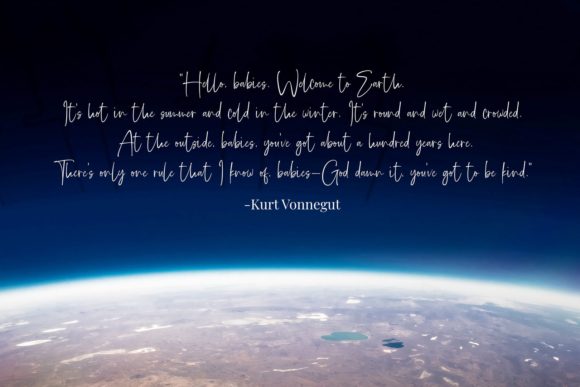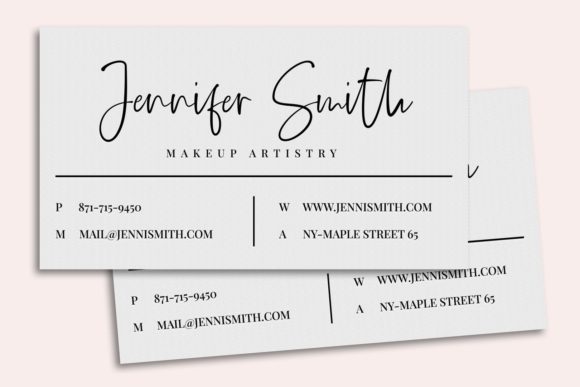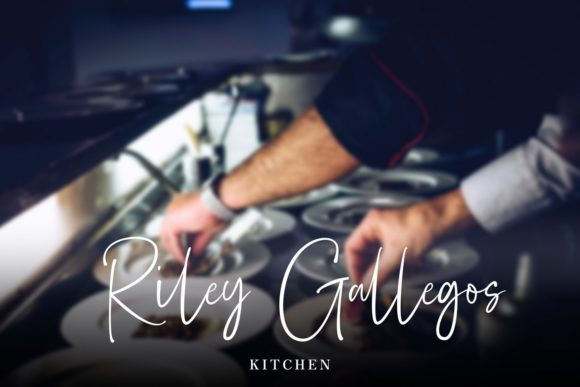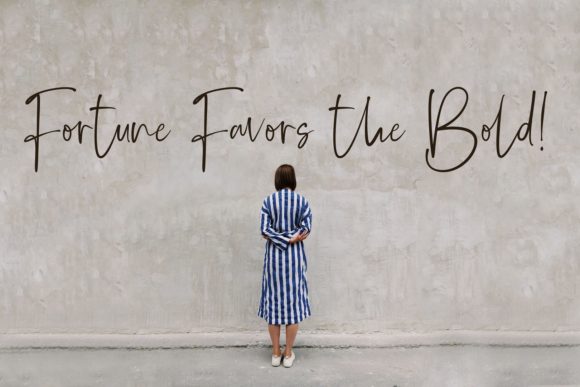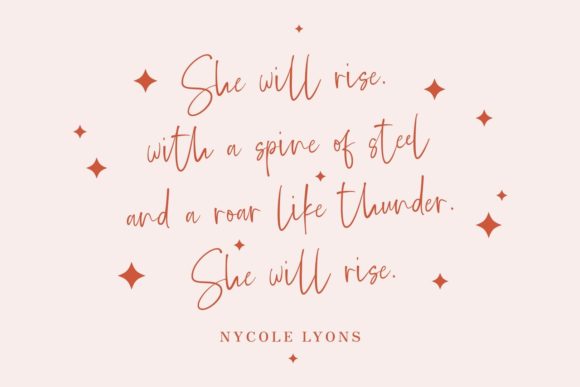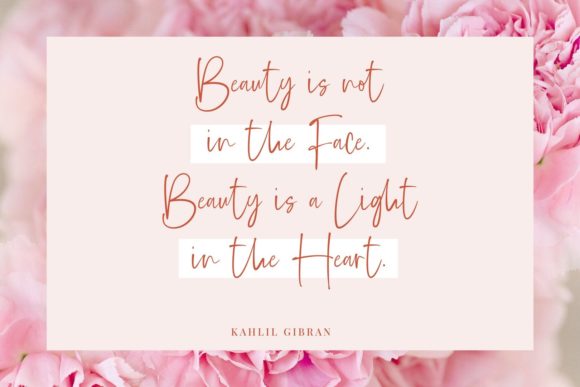
Introduction to Sleeping in Silent Font
Have you ever stared at a blank canvas, your mind racing with creative possibilities, only to be halted by the perfect font to bring your vision to life? For designers, the quest for the perfect font is an ongoing journey. And that’s where the Sleeping in Silent Font comes in – a stylish and fashionable script font that’s sure to elevate any branding project.
Whether you’re working on a logo, t-shirt printing, or creative product, Sleeping in Silent Font is the perfect design resource to add a touch of elegance and sophistication. Its versatility makes it suitable for a variety of contexts, from digital to print, and its high quality ensures that your design stands out from the crowd.
- Unique, elegant design that adds a touch of sophistication to any creative project or design.
Honest Review: Sleeping in Silent Font
I recently had the chance to work with the Sleeping in Silent Font, and I must say it’s been a game-changer for my design projects. This font is a high-quality resource that can add a touch of elegance to any creative project.
Limitations: ⚠️ The font is only available in a limited number of weights, which may not be suitable for designers who require a wide range of styles.
Overall, I’m thoroughly impressed with the Sleeping in Silent Font. Its high-quality design and free download option make it a valuable resource for any designer working on a creative project. I highly recommend giving it a try.
Sleeping in Silent Font
Sleeping in Silent Font is a high-quality, free download font that can be used in various creative projects. This design resource features a transparent background, making it versatile for different applications.
Sleeping in Silent Font can be used in a variety of creative projects, including logos, brochures, social media graphics, and more. Its transparent background makes it ideal for layered designs.